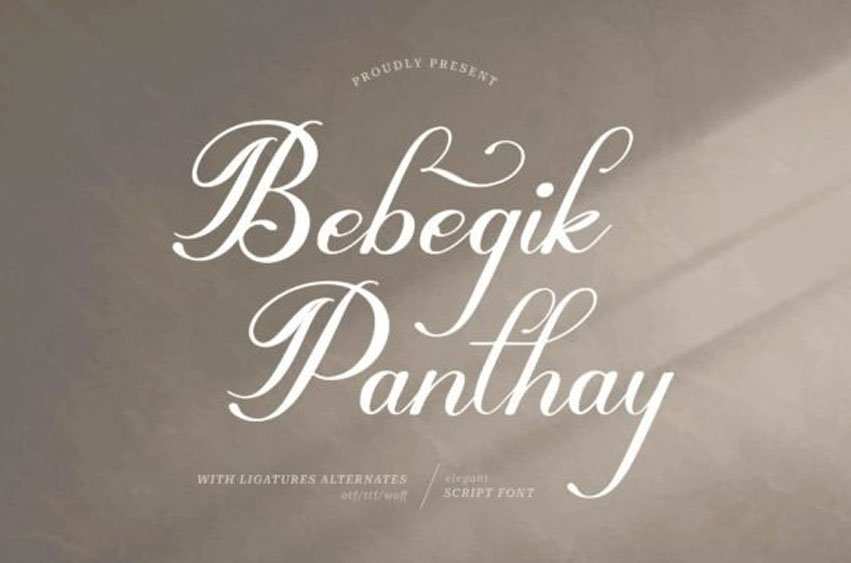
Bebegik Panthay Font Calligraphy Script, suitable for any projects such as logos, branding projects, homeware designs, product packaging, mugs, quotes, posters, shopping bags, t-shirts, book covers, name cards, invitation cards, greeting cards, labels, photography, watermark, special events, and all your other lovely projects that need a beautiful script taste.
It is perfect for your upcoming projects.